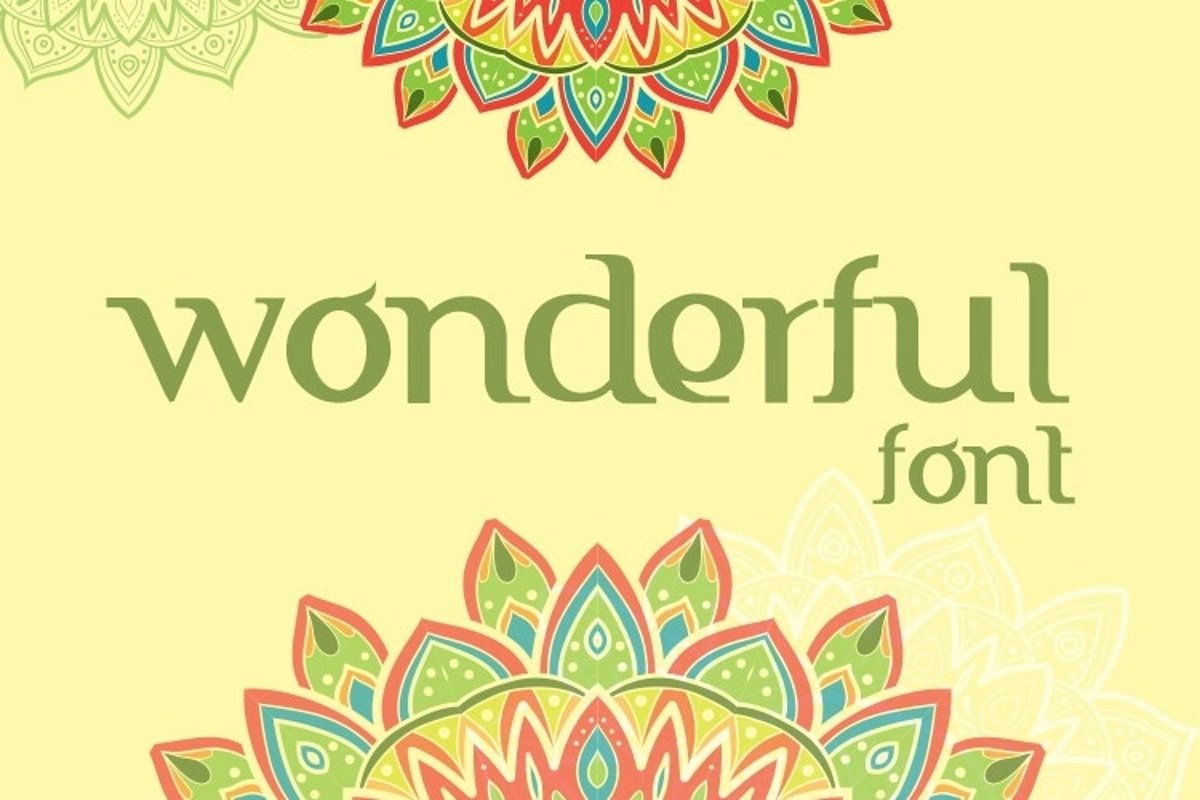
FTF Indonesiana Aruna Serif PRO
FTF Indonesiana Aruna Serif
Great & Famous font from Indonesia & Go International for branding or anything...
*Features*